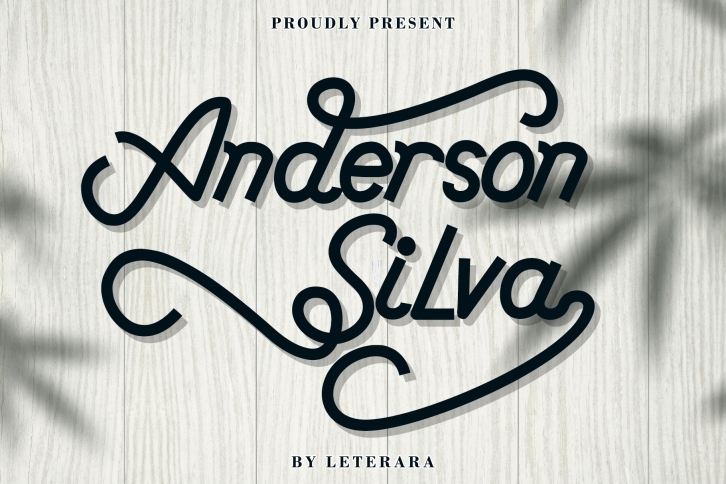
Anderson Silva is a beautiful font that was designed by letterara. It's a great choice for designers and creatives who need such a font. It was released on December 9, 2019 and the file size is 7.33 MB. Anderson Silva may give a more youthful, expressive and casual look to your project. It is a very beautiful, refined, elegant, and high-quality font.